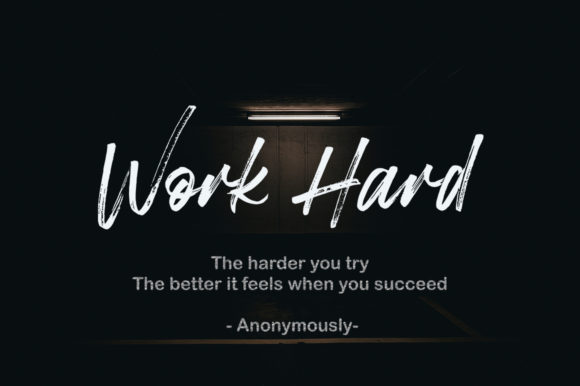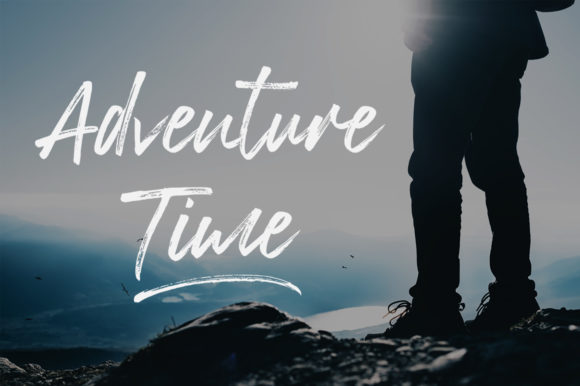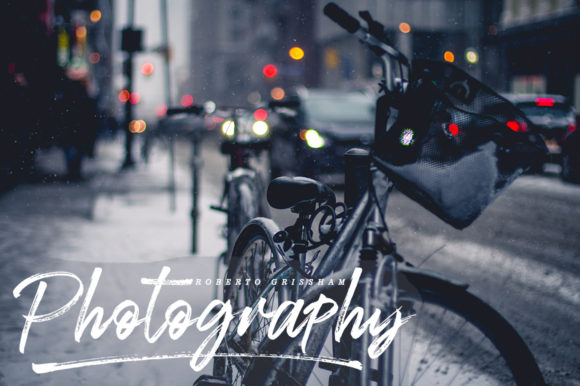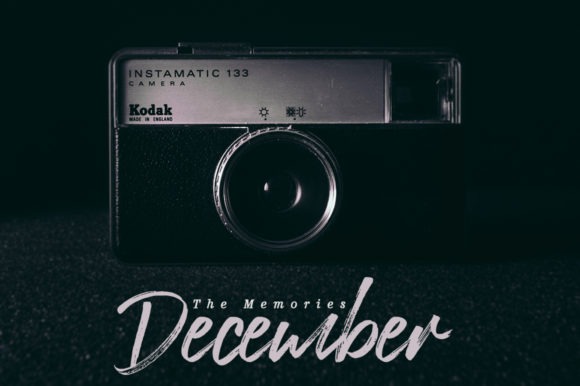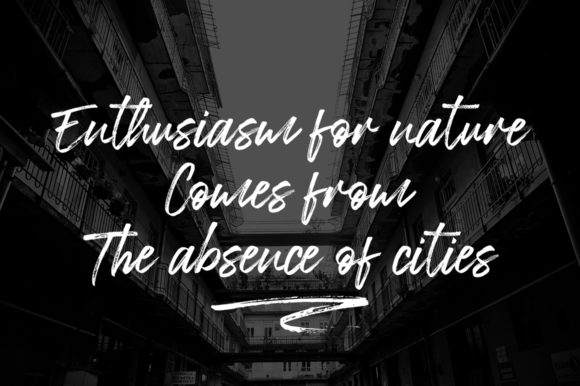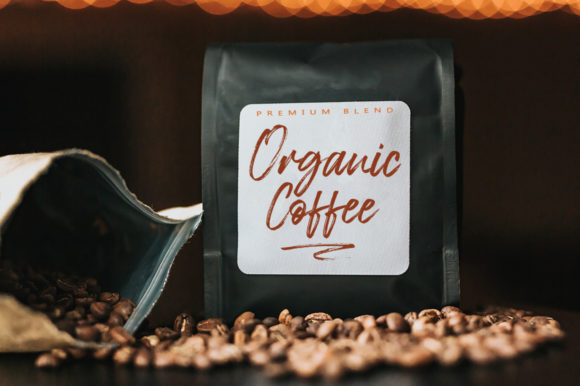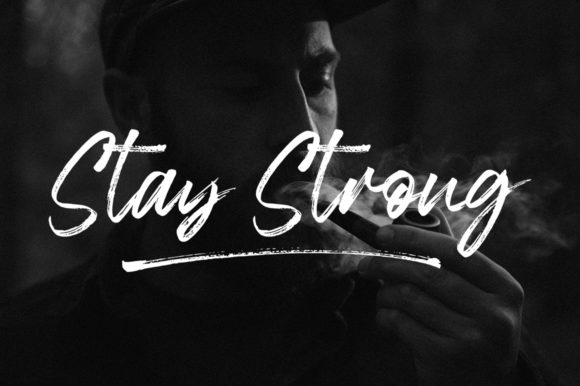
Rushfiel Font
About Rushfiel Font
Rushfiel is an incredibly flowing and timeless handwritten font, designed with the help of a brush pen. It looks stunning on wedding invitations, thank you cards, quotes, greeting cards, logos, business cards and every other design which needs a handwritten touch.